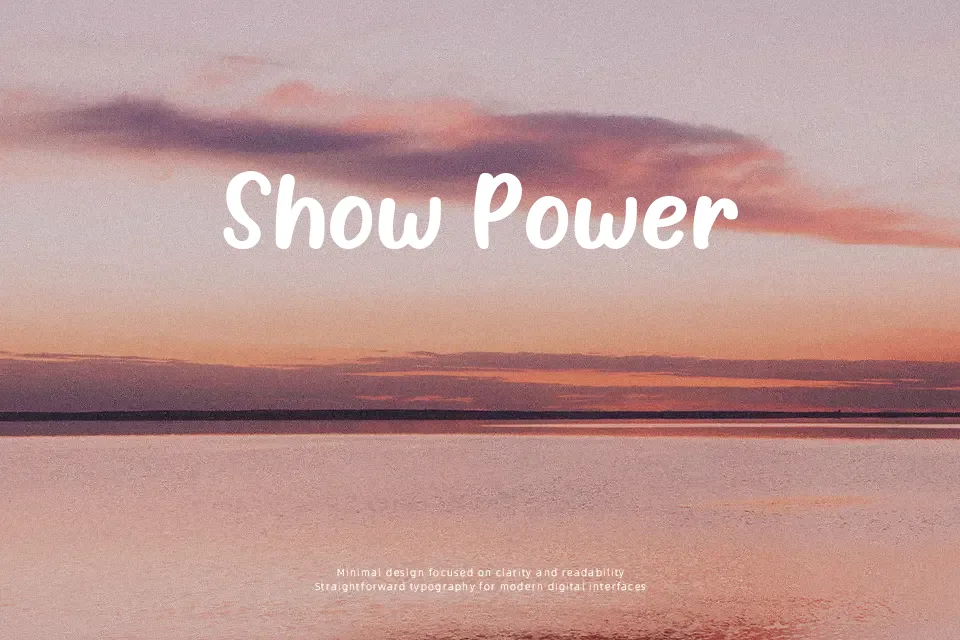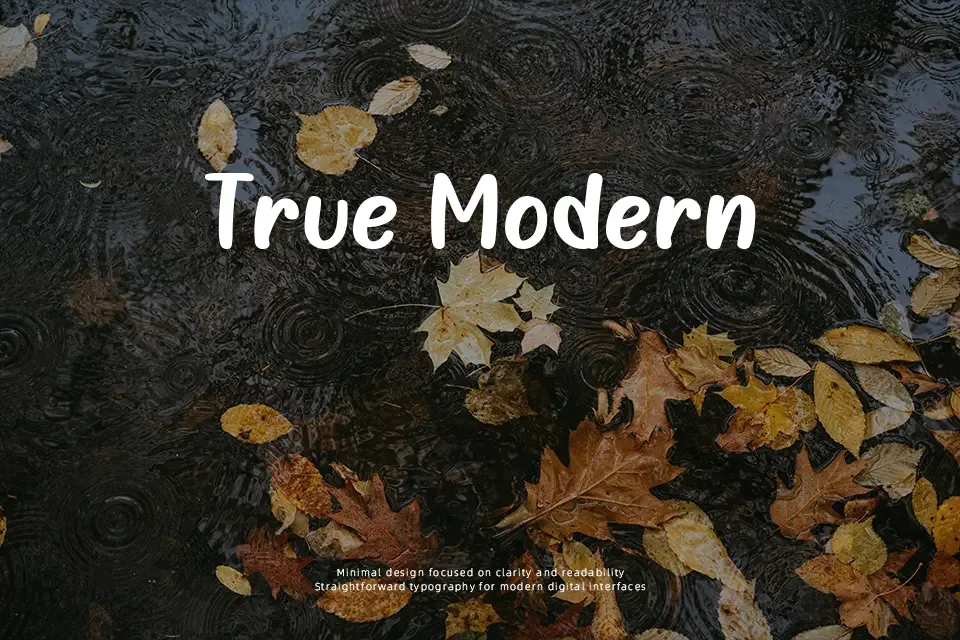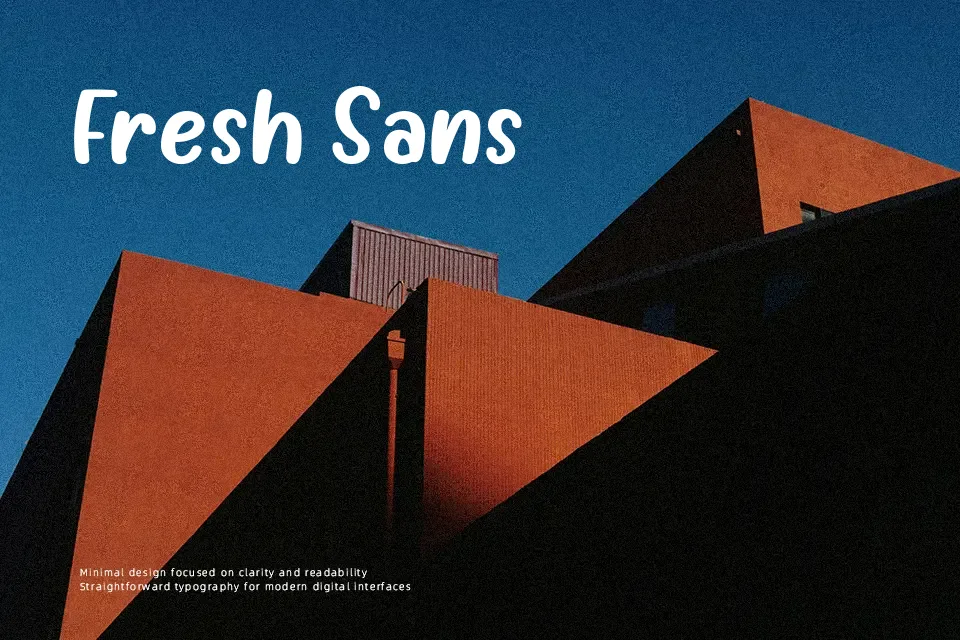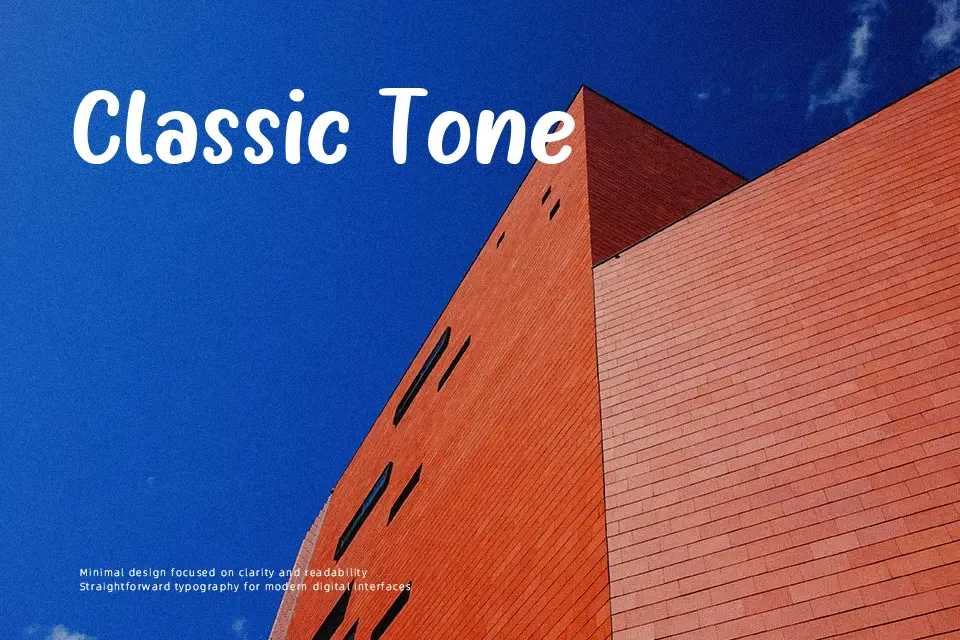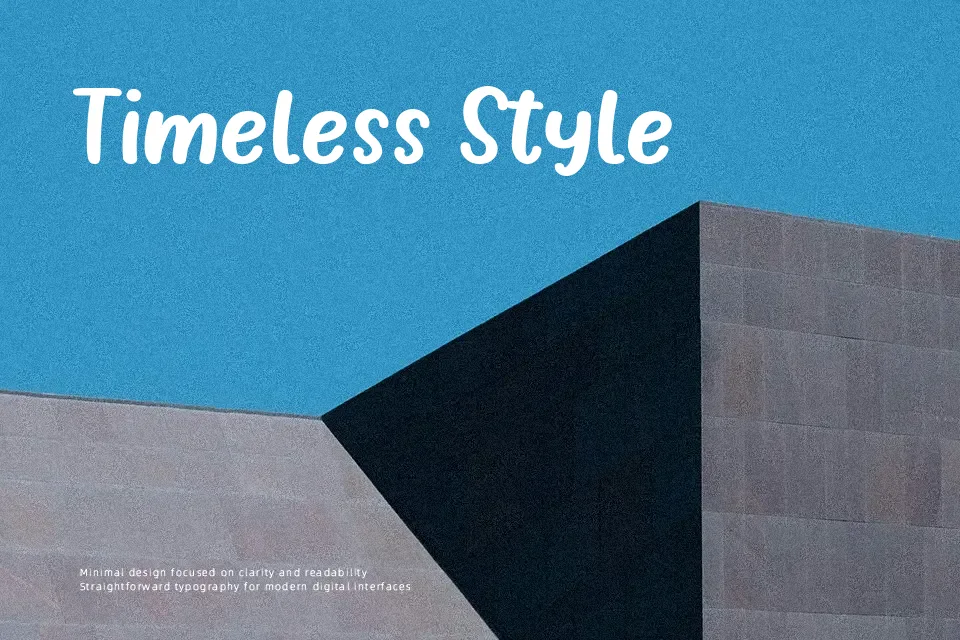
Plavea Font
Designed by Viswell Studio
Plavea Font uses broad handwritten letterforms with rounded curves, uneven baseline movement, and a loose, friendly rhythm. Its strokes appear thick and softly formed, while the uppercase and lowercase characters keep an informal, expressive balance. Spacing is open enough to separate short words clearly in display settings, and the numerals follow the same casual construction. The typeface works well for cheerful headlines, apparel prints, labels, and short promotional messages. The bold shapes maintain visibility at larger sizes, especially when used with simple layouts. However, its playful irregularity becomes less effective in small text, dense layouts, or extended passages where steadier forms are needed.
Best For: apparel graphics,casual poster headlines,social media quotes,product label titles
Perfect for headline, packaging, and poster, with a bold and display style.